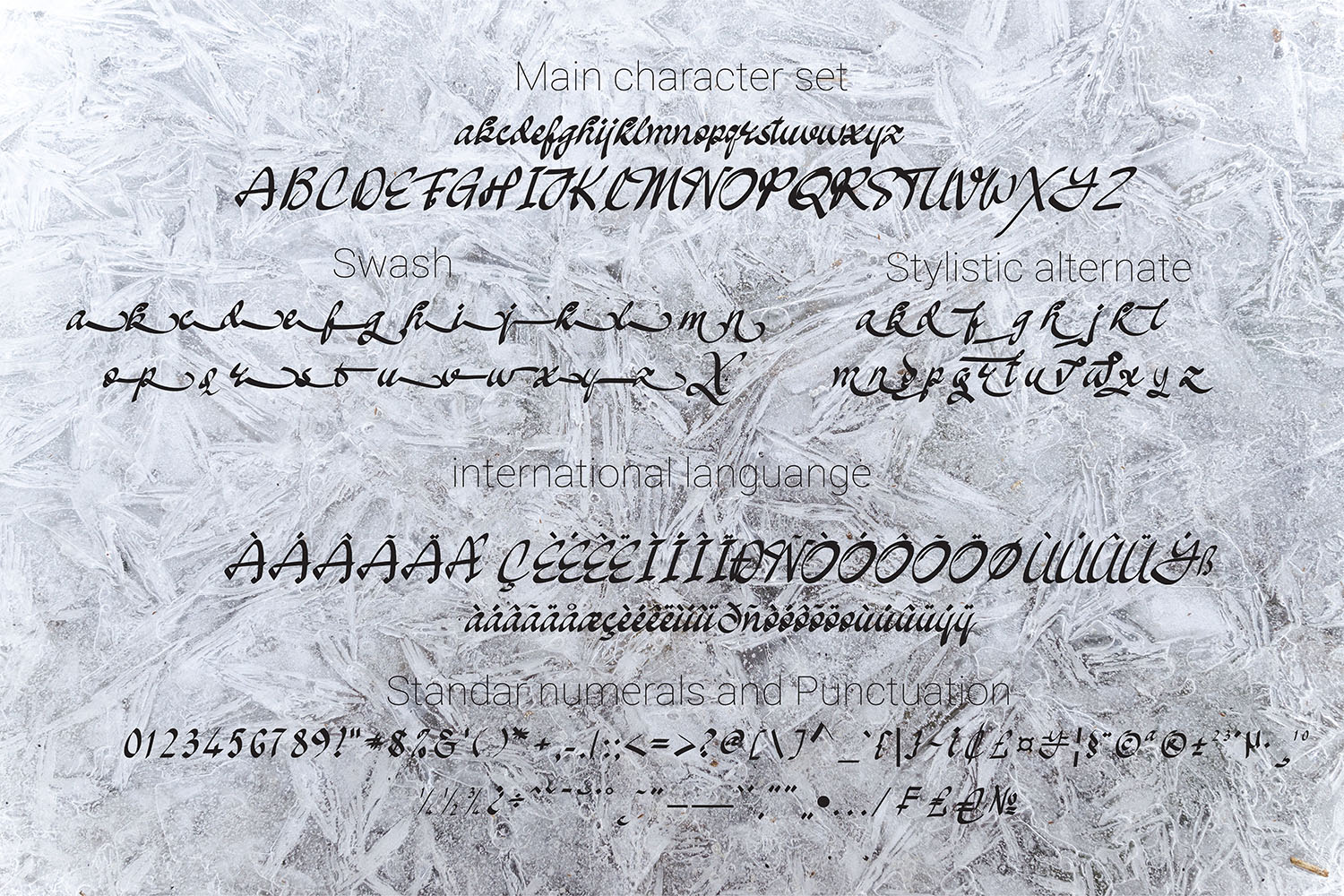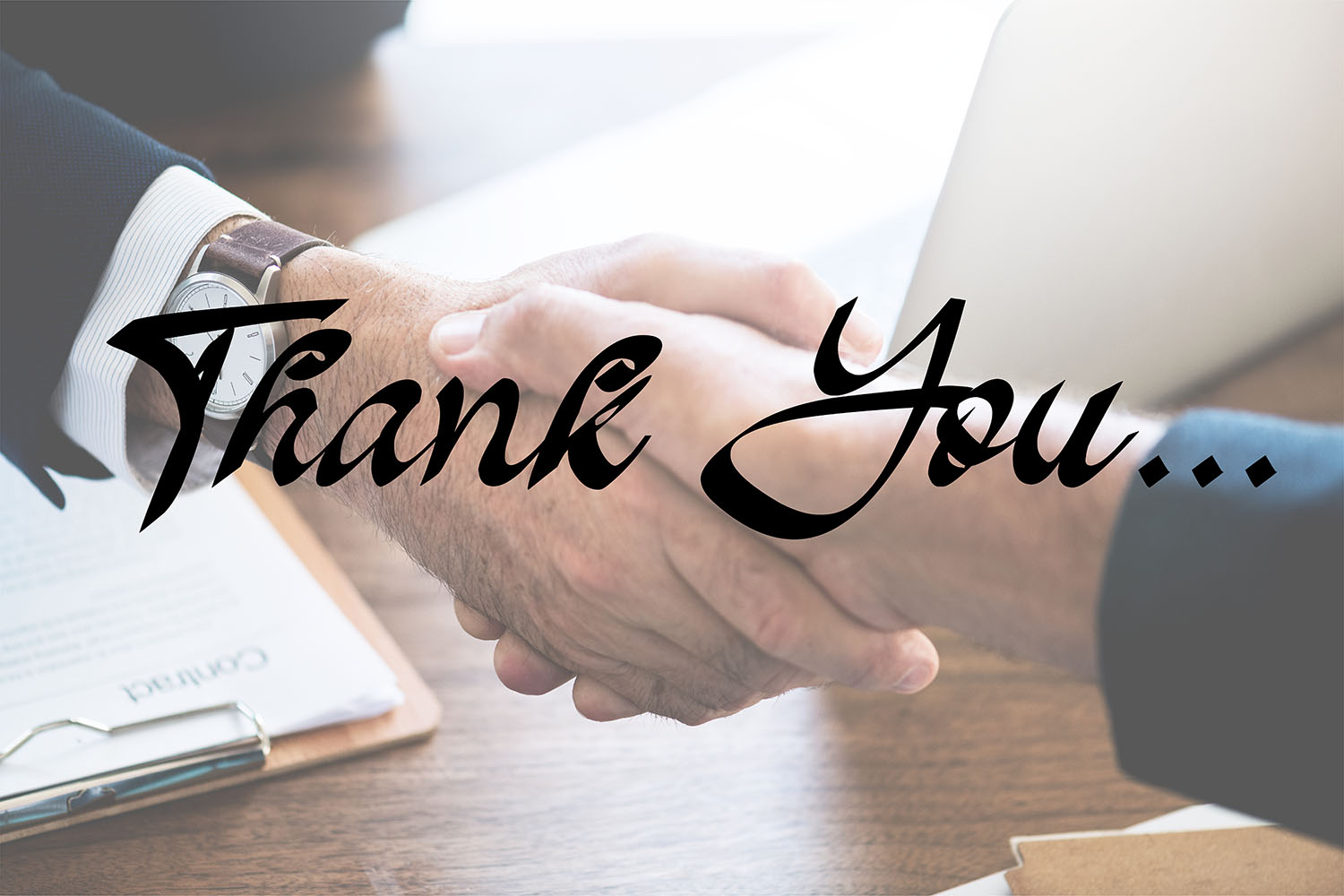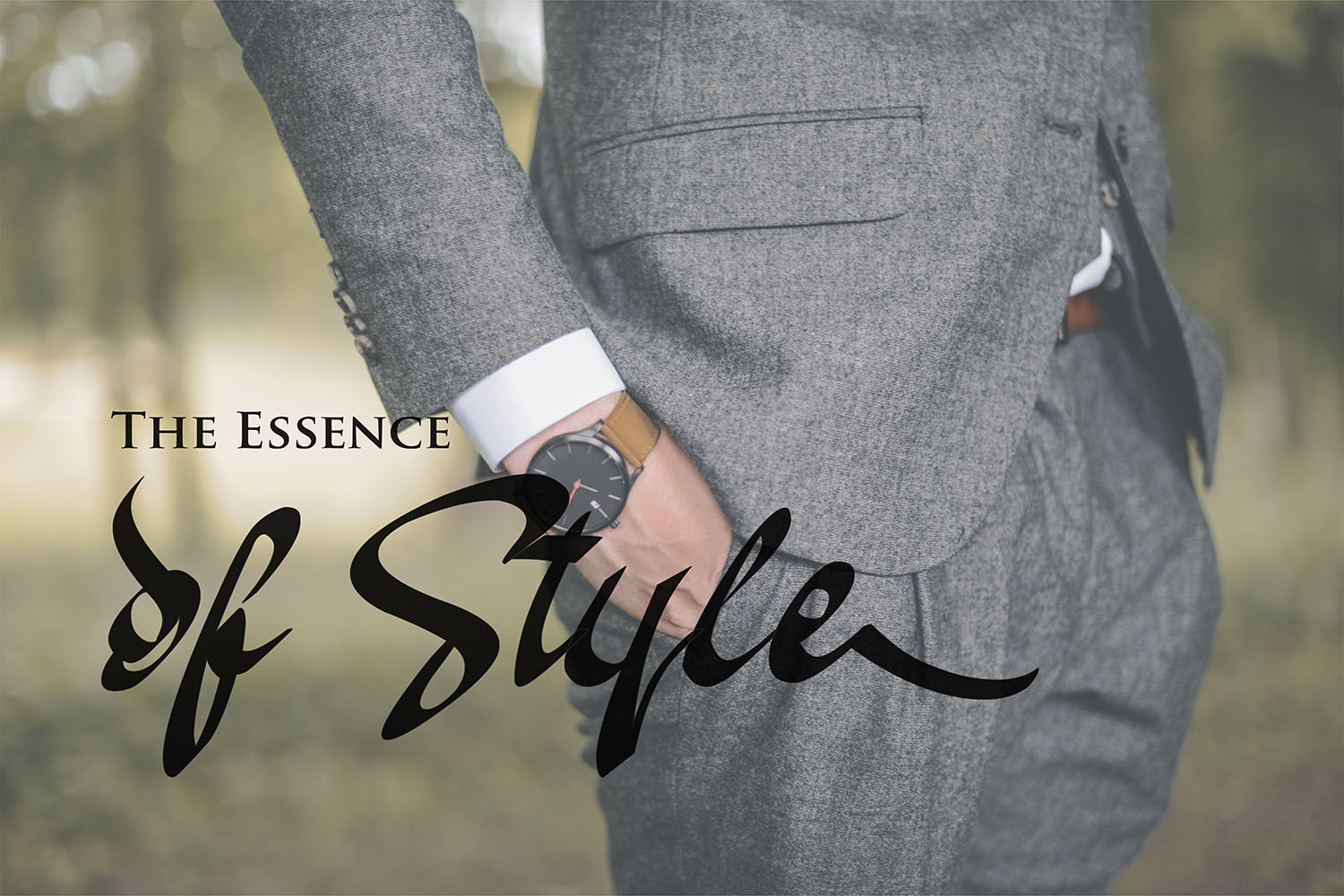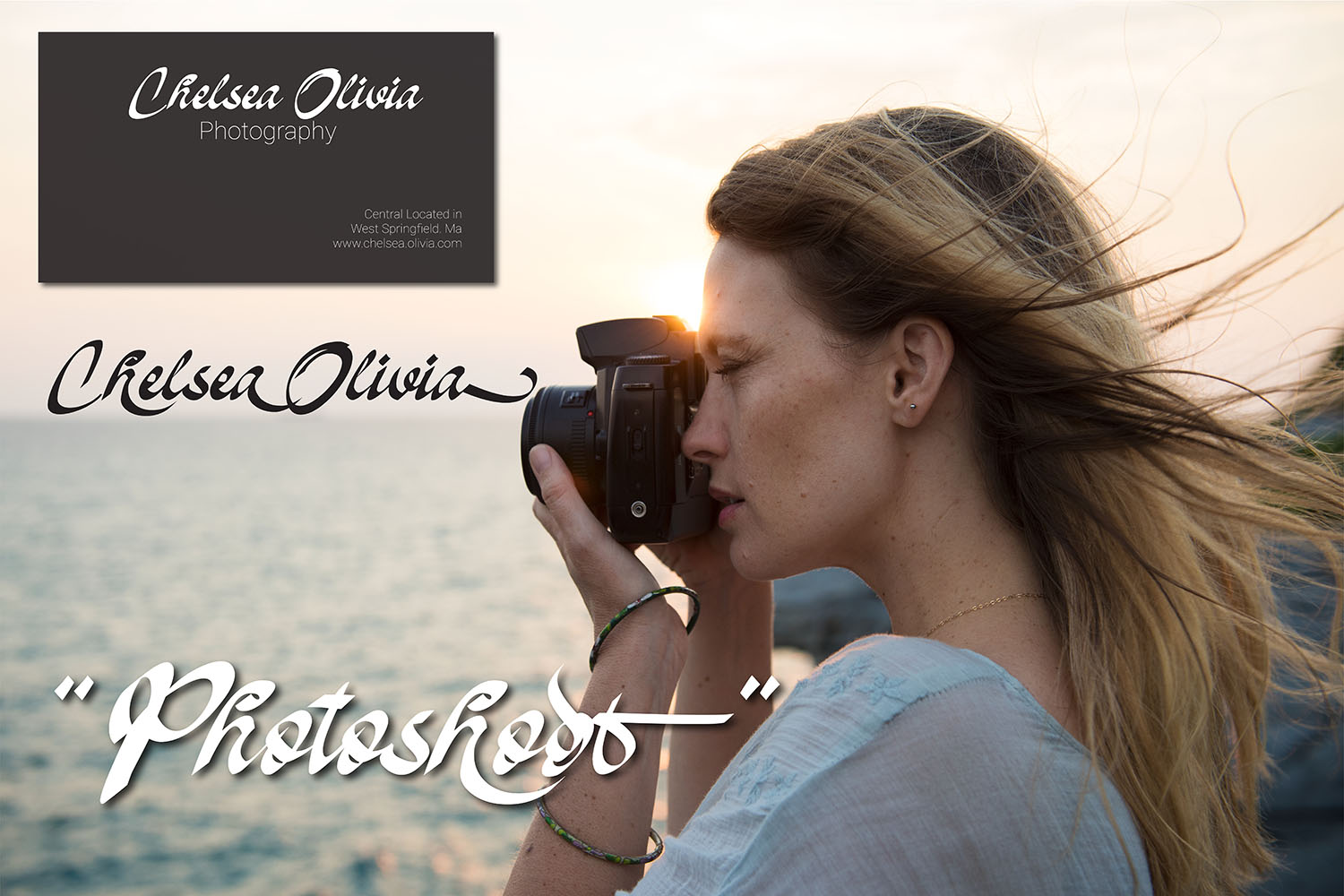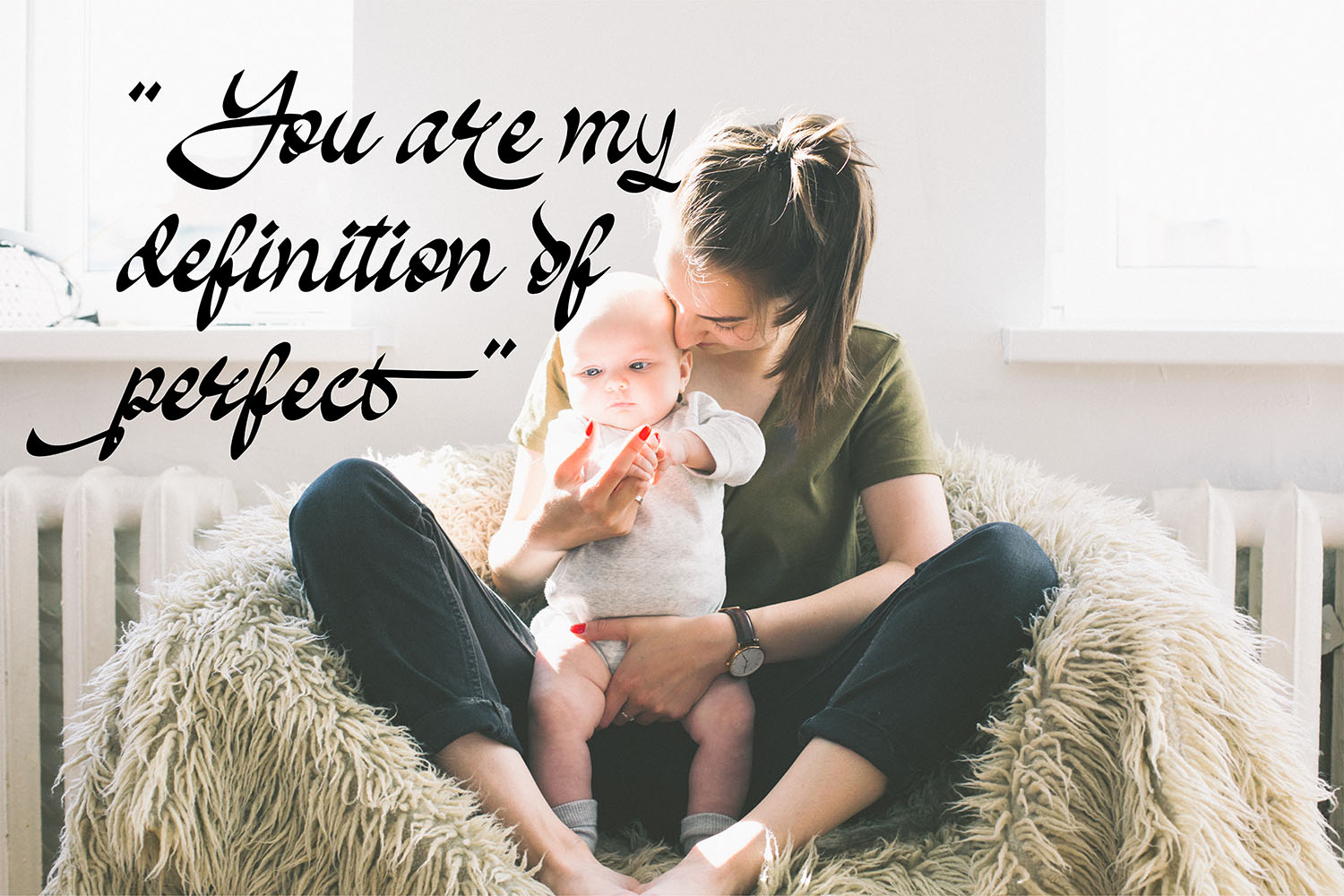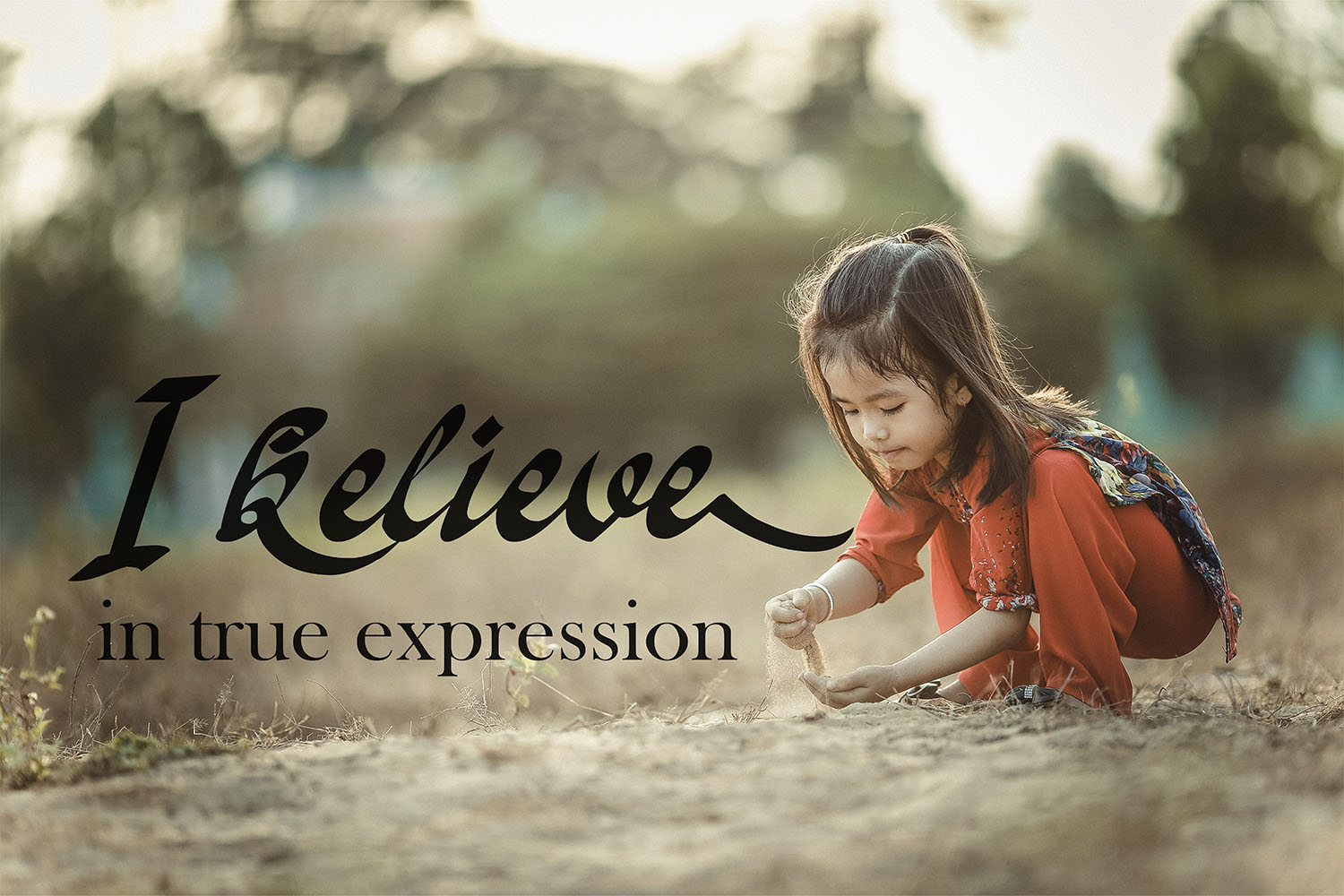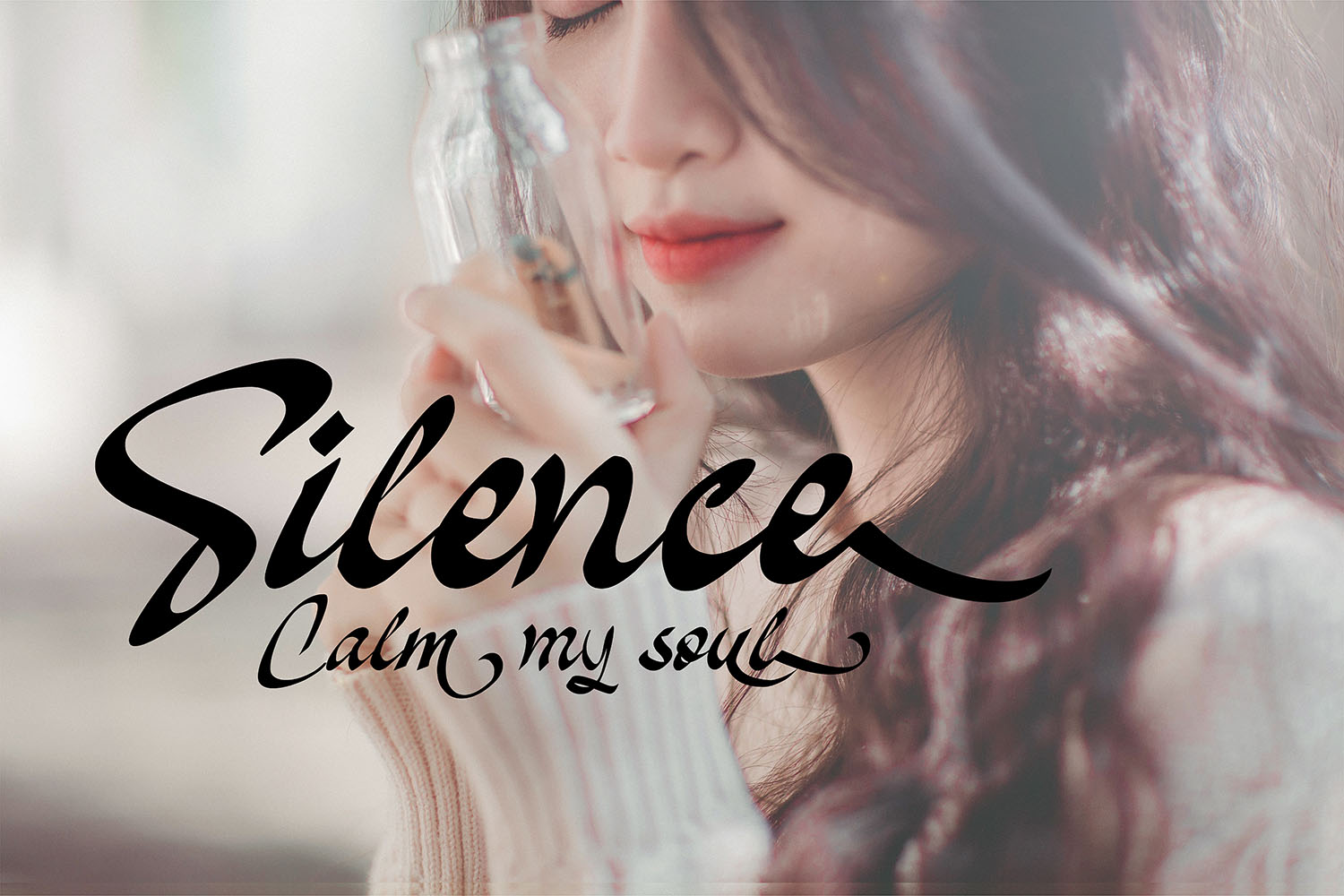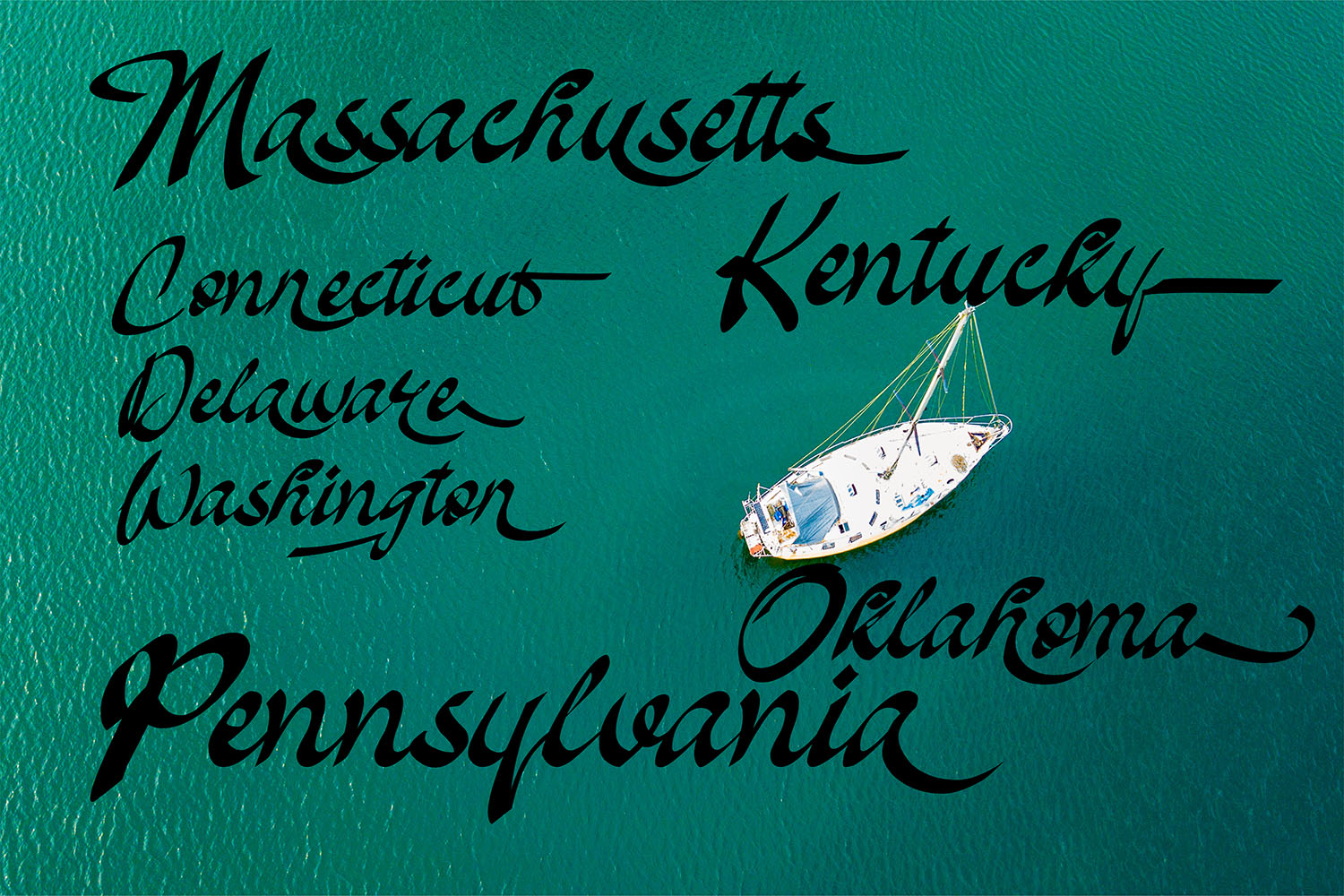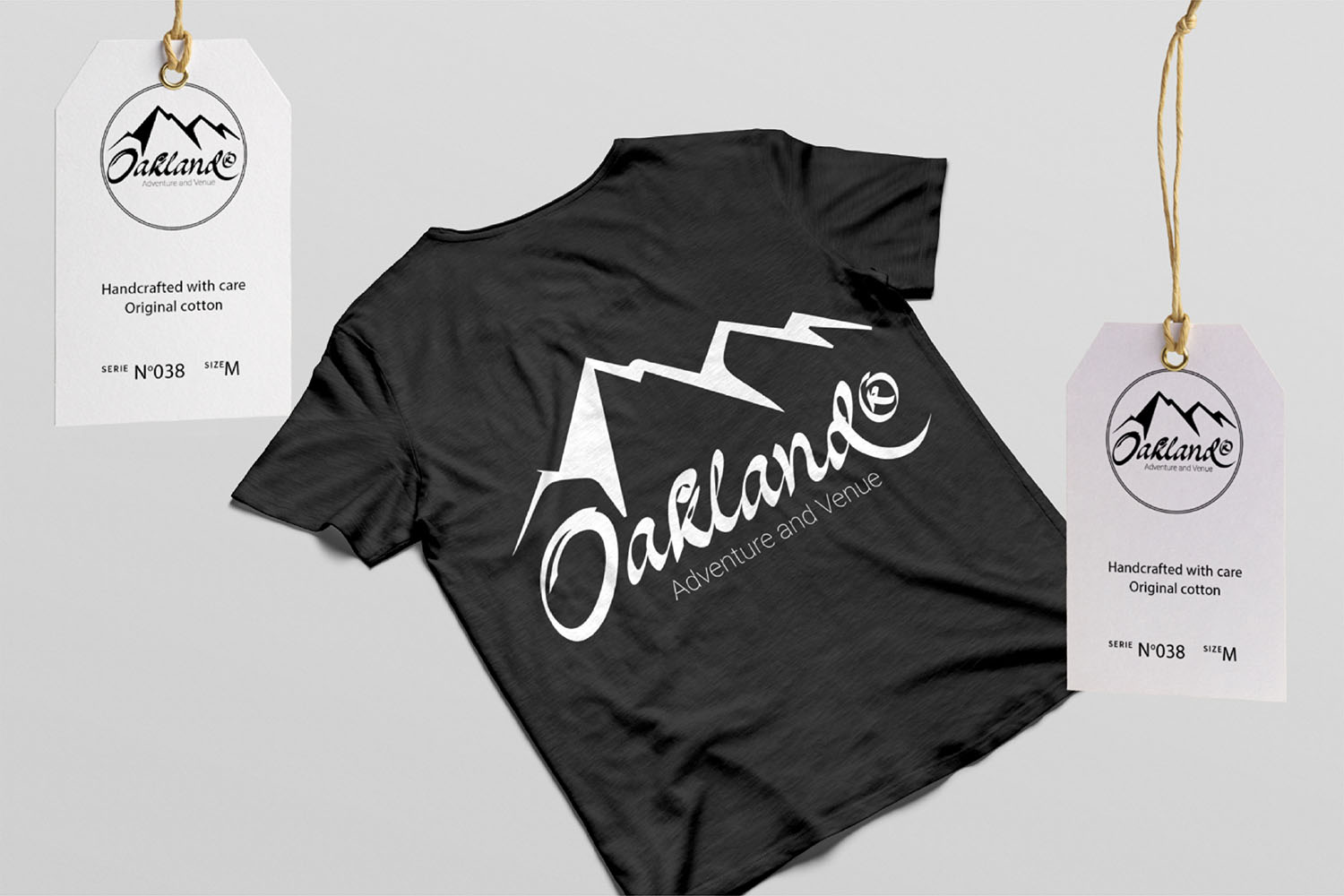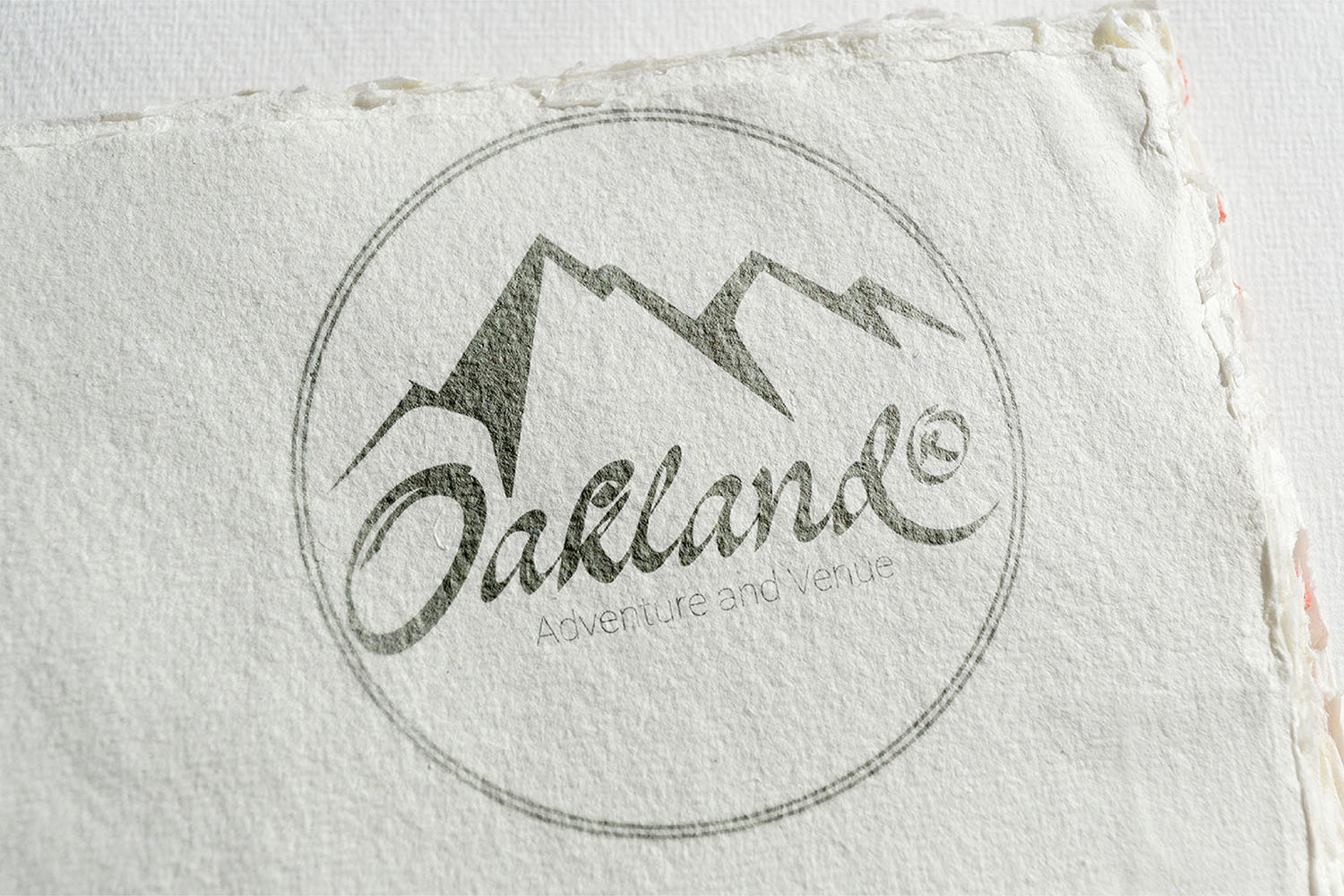
Oakland Font
About Oakland Font
Oakland is a painterly calligraphy font. It’s crisp and is designed in a modern way, that works great for display and headlines.
It’s a font that is great for brand-specific content.